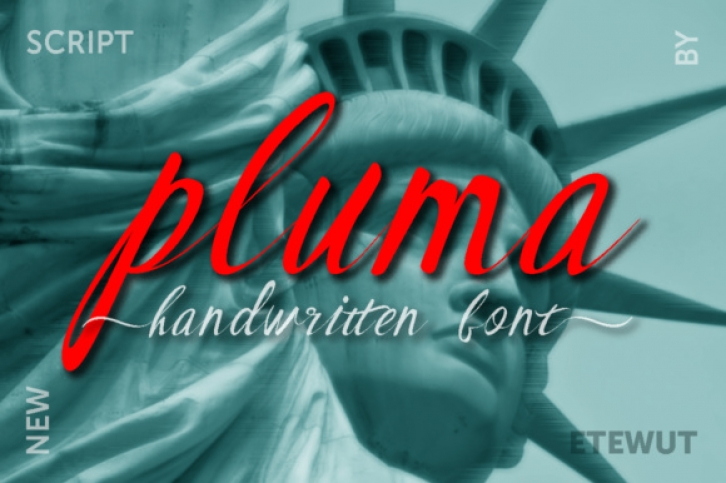
Pluma is a gorgeous and relaxed handwritten font, ideal for use in any type of work. This font looks great in print projects that need a bold headline, and can add an organic touch.